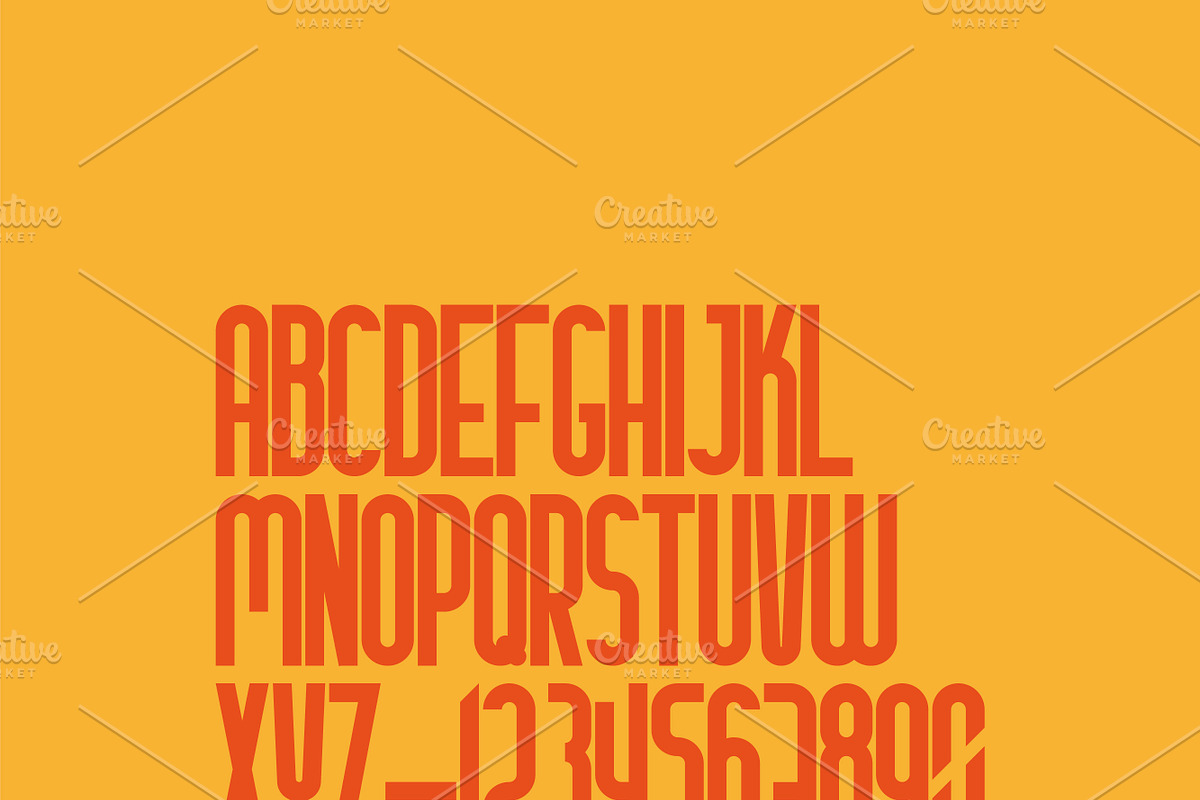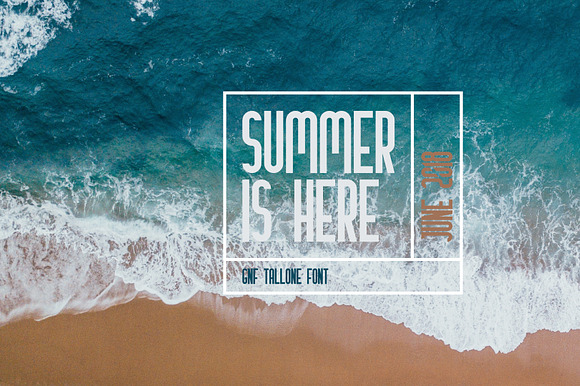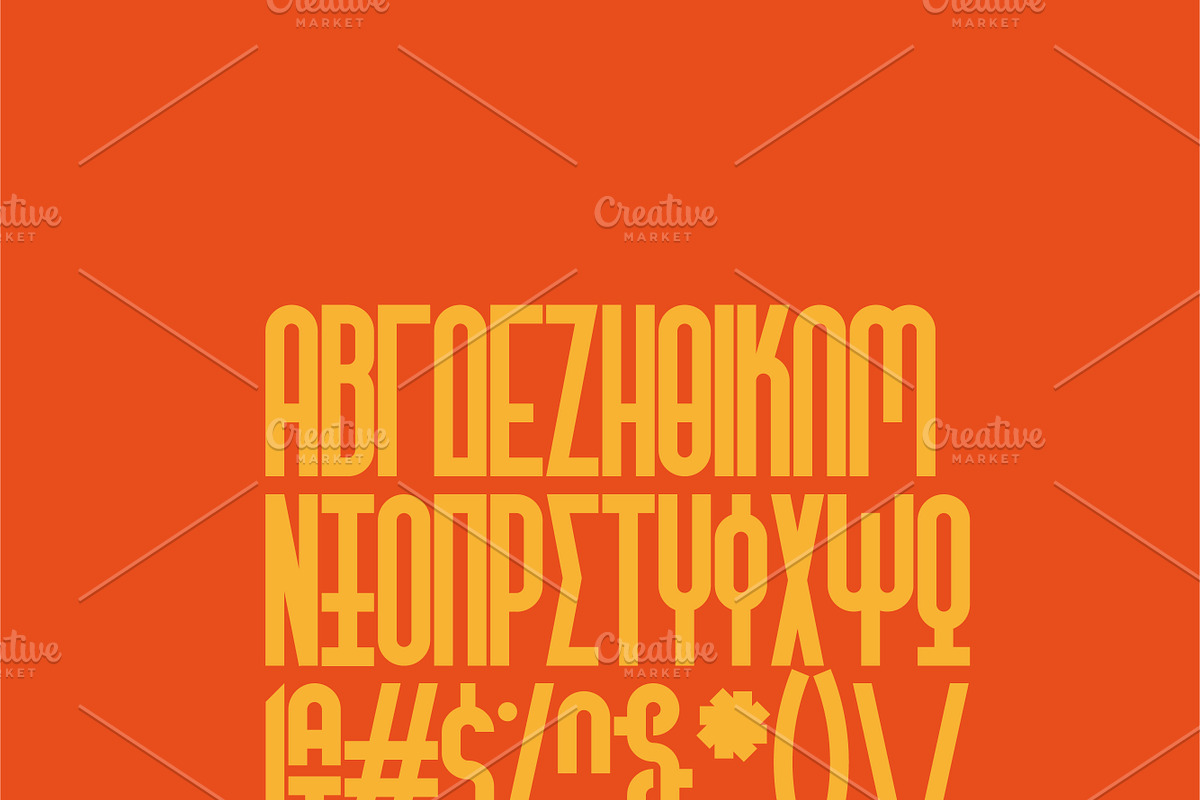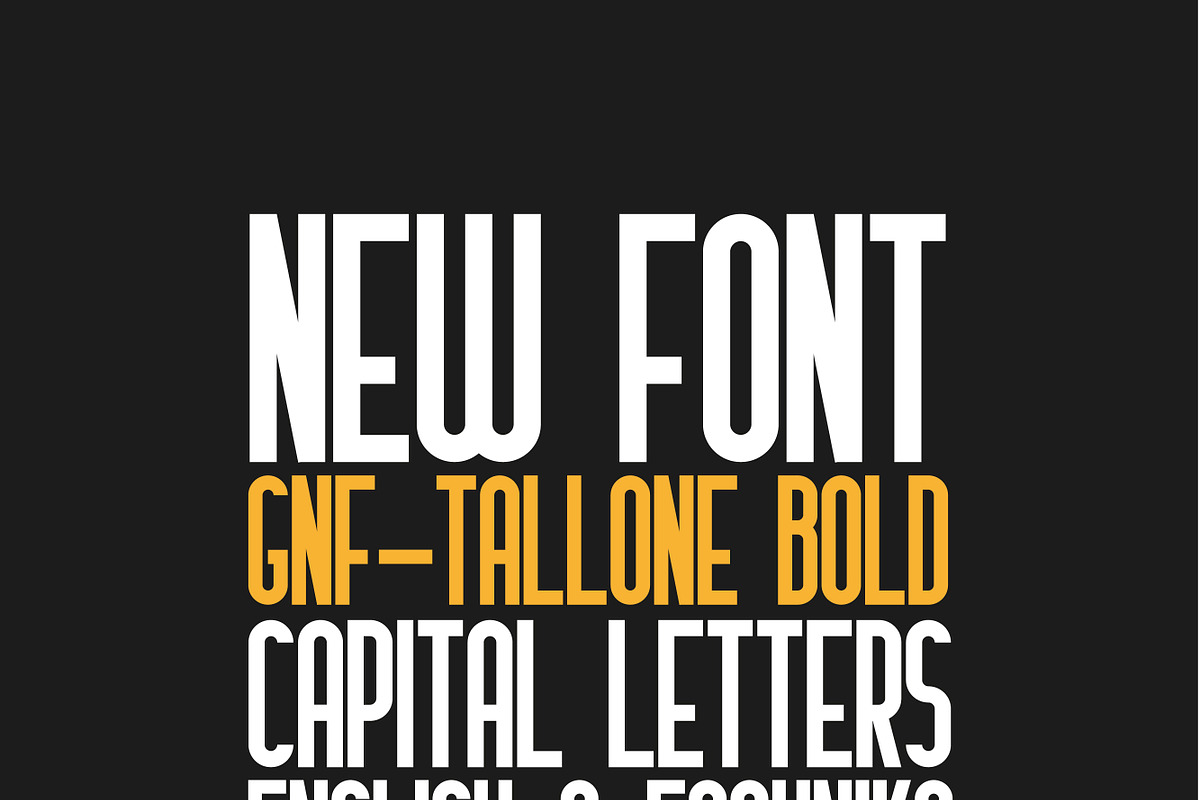
GNF-Tallone Bold Font
Font for bold big titles, long and tall, 2 languages supported, english and greek, numbers and special characters... enjoy!
GNF-Tallone Bold Font by george.nikolaidis fits naturally into Branding, posters, packaging, typography.